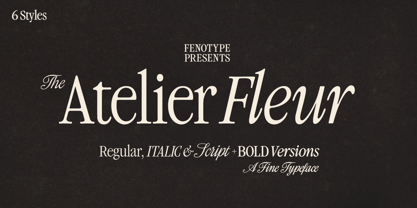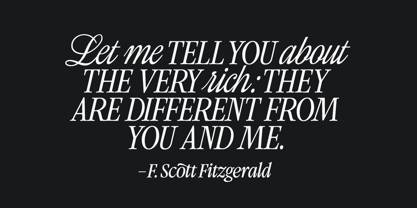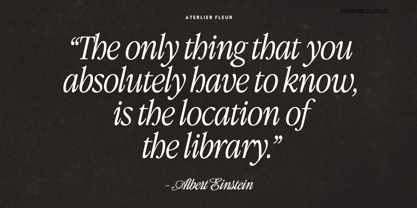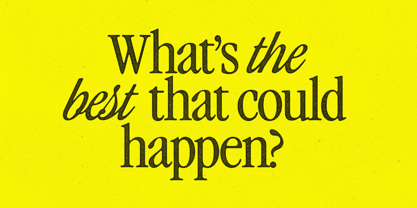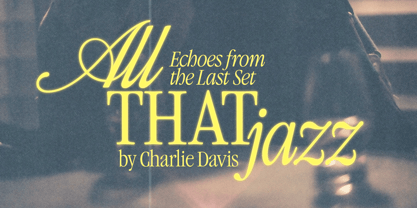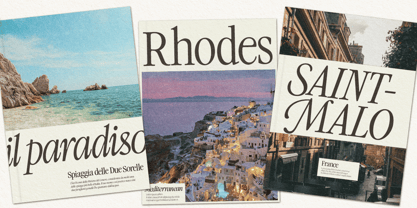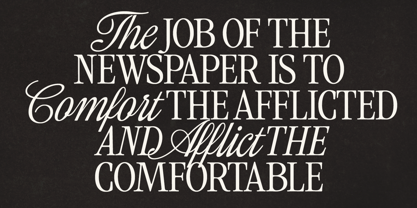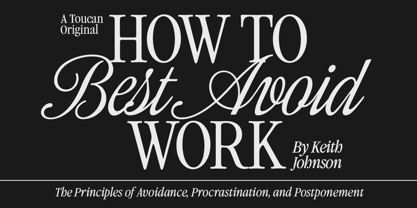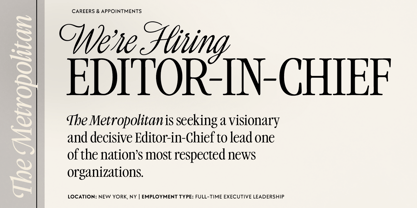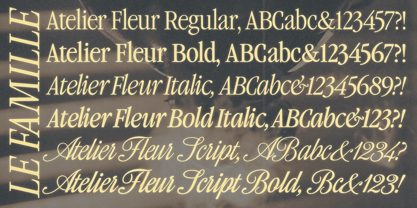
Atelier Fleur
Die Schriftfamilie Atelier Fleur wurde von Emil Karl Bertell entworfen und von Fenotype veröffentlicht. Atelier Fleur enthält 6 Stile und Familienpaketoptionen. Mehr über diese Familie
Atelier Fleur is a condensed serif type family inspired by Garamond. The family consists of Serif, Italic, and Script styles, each available in Regular and Bold weights. The type family is optimized for editorial and display use, performing particularly well in headlines, editorial highlights, branding and advertising. The Script style is designed to complement the serif styles harmoniously while remaining fully functional as a standalone display script. All styles provide extensive language coverage and include a comprehensive set of OpenType features. The Script and Italic styles offer a range of alternate characters accessible through Swash, Stylistic Alternates, Titling Alternates, and multiple Stylistic Sets. The Script style additionally contains decorative pen stroke elements, accessible via Stylistic Set 1 and mapped to numerals (0–9).